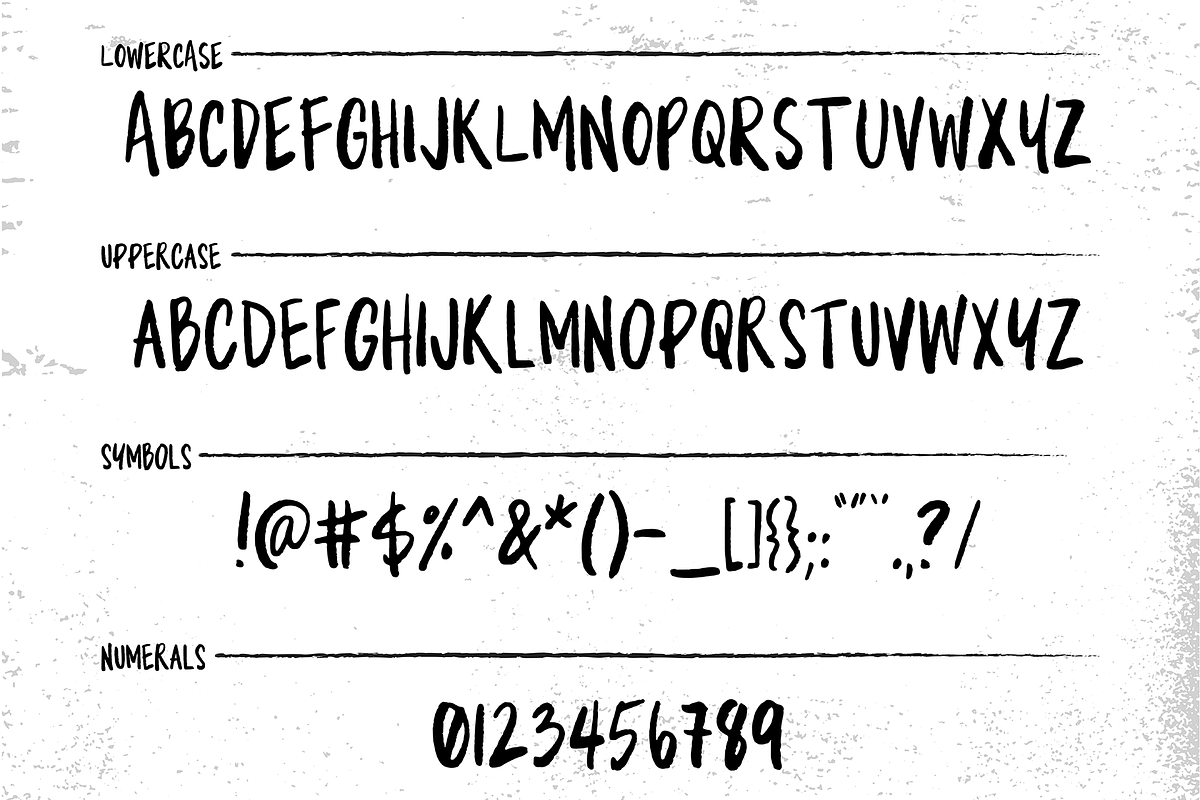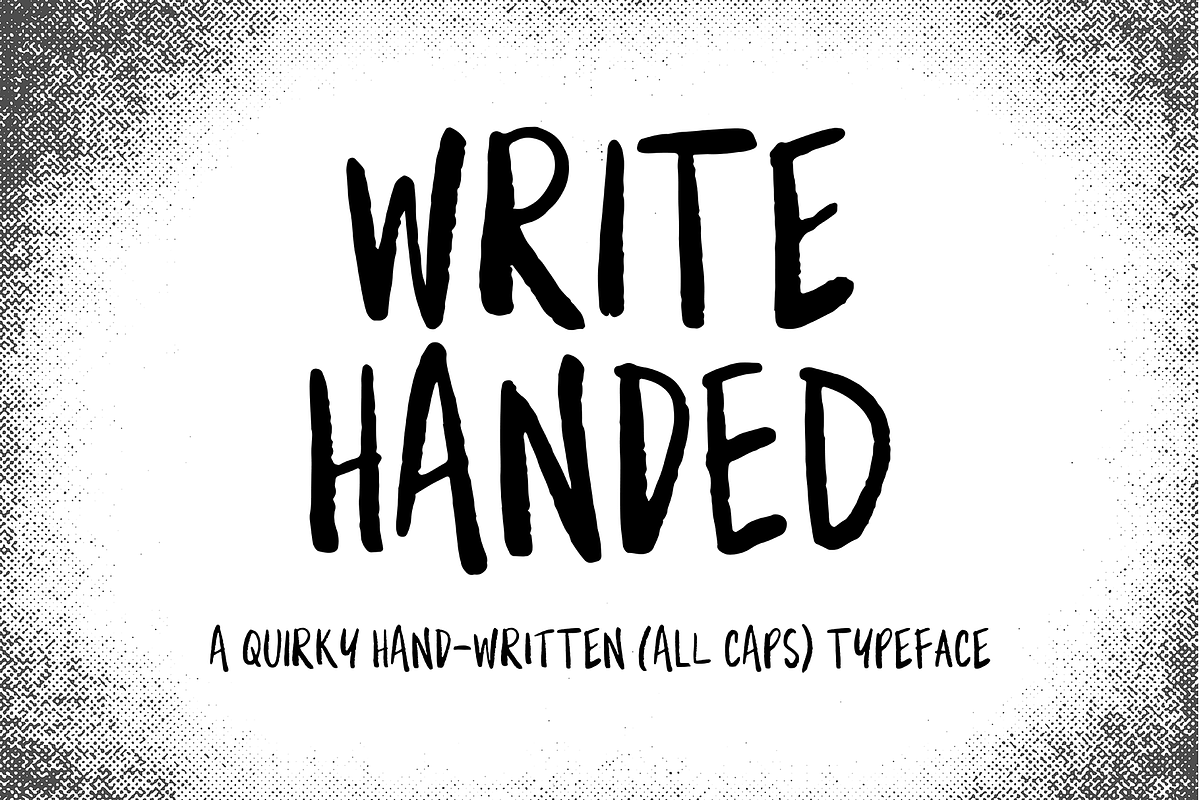
Write Handed
Write Handed is a quirky hand-written, all caps typeface. Based off "Writer" brush available here: https://creativemarket.com/RAEBADS/2899303-Writer-Brush-for-Procreate